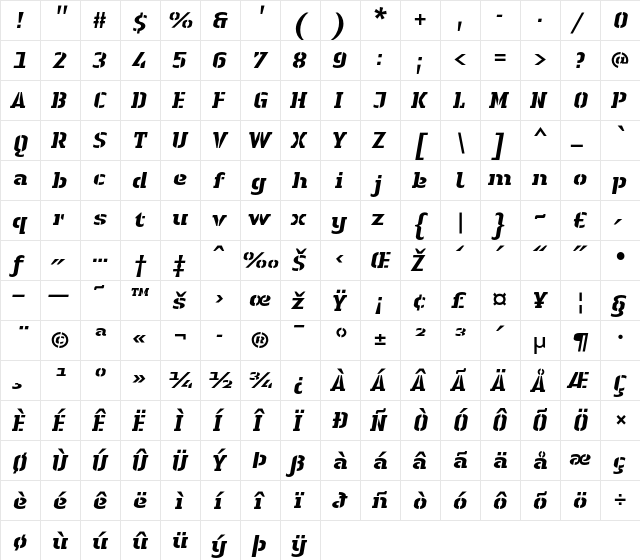
LTAuthenticStencil Regular Font Preview
LTAuthenticStencil Regular
LTAuthenticStencil Regular Font Details
Design Context for LTAuthenticStencil Typeface
LTAuthenticStencil borrows the utilitarian aesthetic of stencil lettering, with its characteristic cutaways and no-frills construction lending an industrial edge.
Ideal for industrial branding, streetwear, military-adjacent aesthetics, and urban signage projects.
Pro Tip: Pair LTAuthenticStencil with raw, utilitarian design elements — exposed concrete textures, flat colour, and minimal ornamentation suit it well.